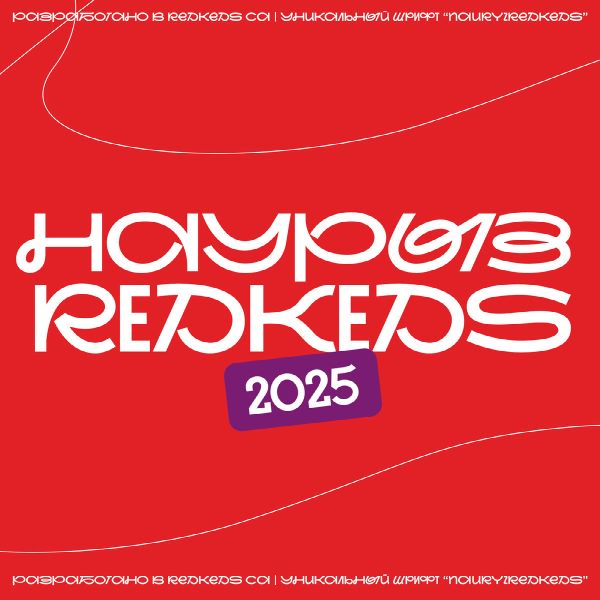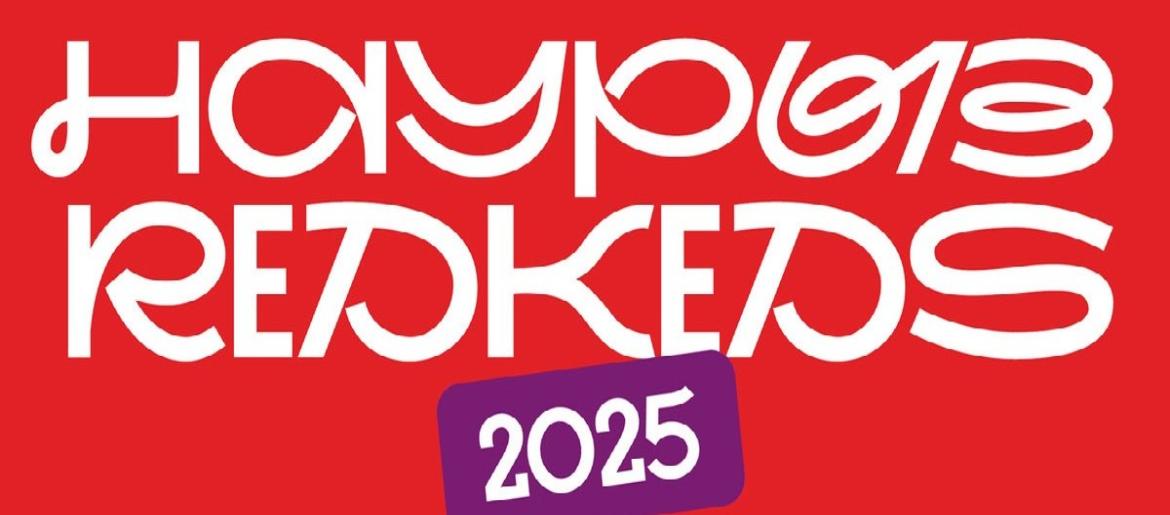
NAURYZREDKEDS Font
NAURYZREDKEDS is a bold, characterful display typeface created by Kazakhstan-based creative studio REDKEDS CA in collaboration with type designers Roman Tabachi and Roman Mirzayev. Taking its name from Nauryz — the traditional spring new year celebrated across Central Asia and beyond — the font brings that festive, culturally resonant energy directly into its letterforms. The design is assertive and expressive, built for high-impact display use in branding, editorial, and visual identity contexts.
NAURYZREDKEDS is a bold and culturally grounded entry in our free fonts collection, from REDKEDS CA, Roman Tabachi, and Roman Mirzayev — a collaborative effort spanning Kazakhstan and Georgia with an eye toward contemporary Central Asian visual identity.